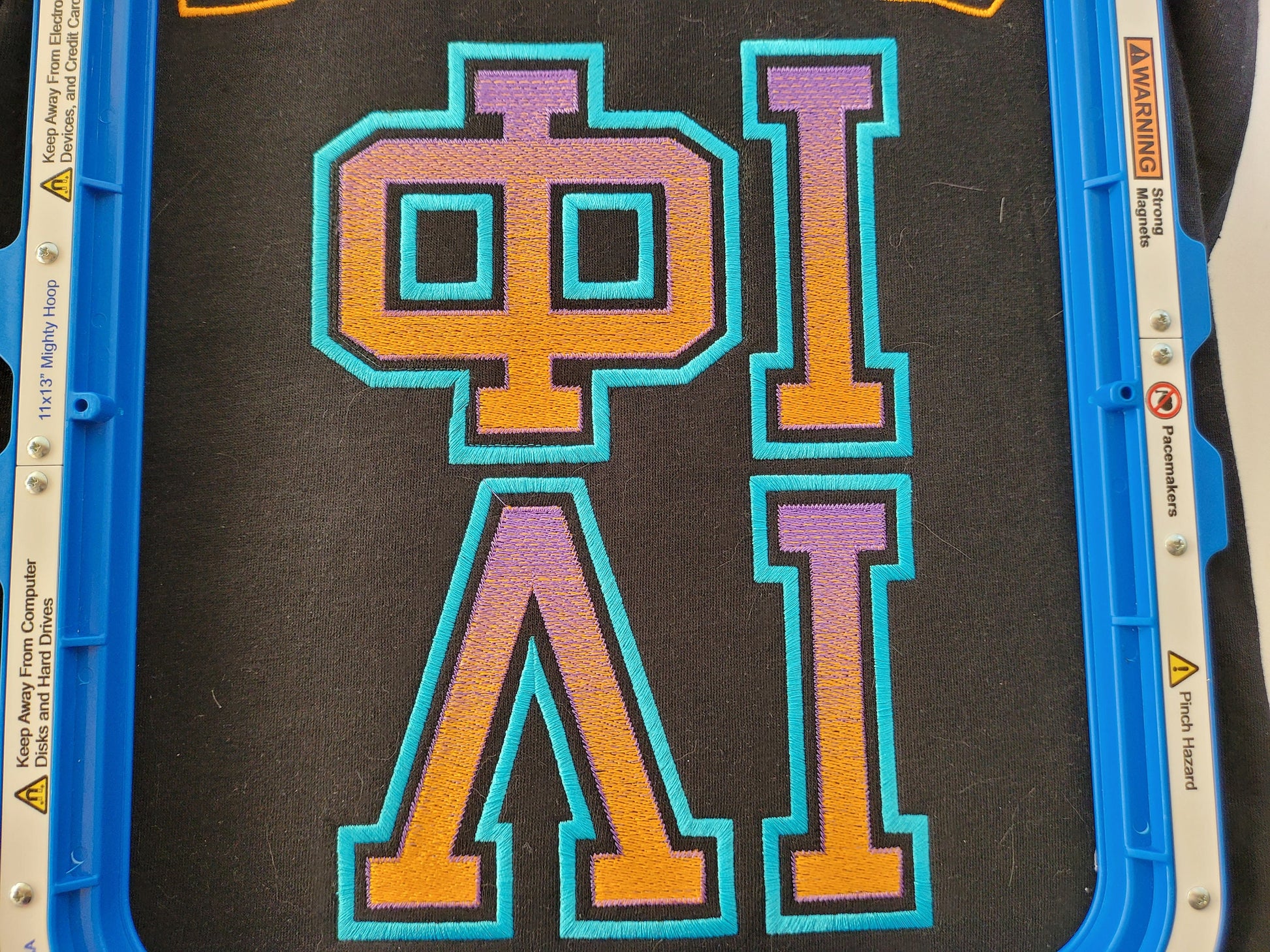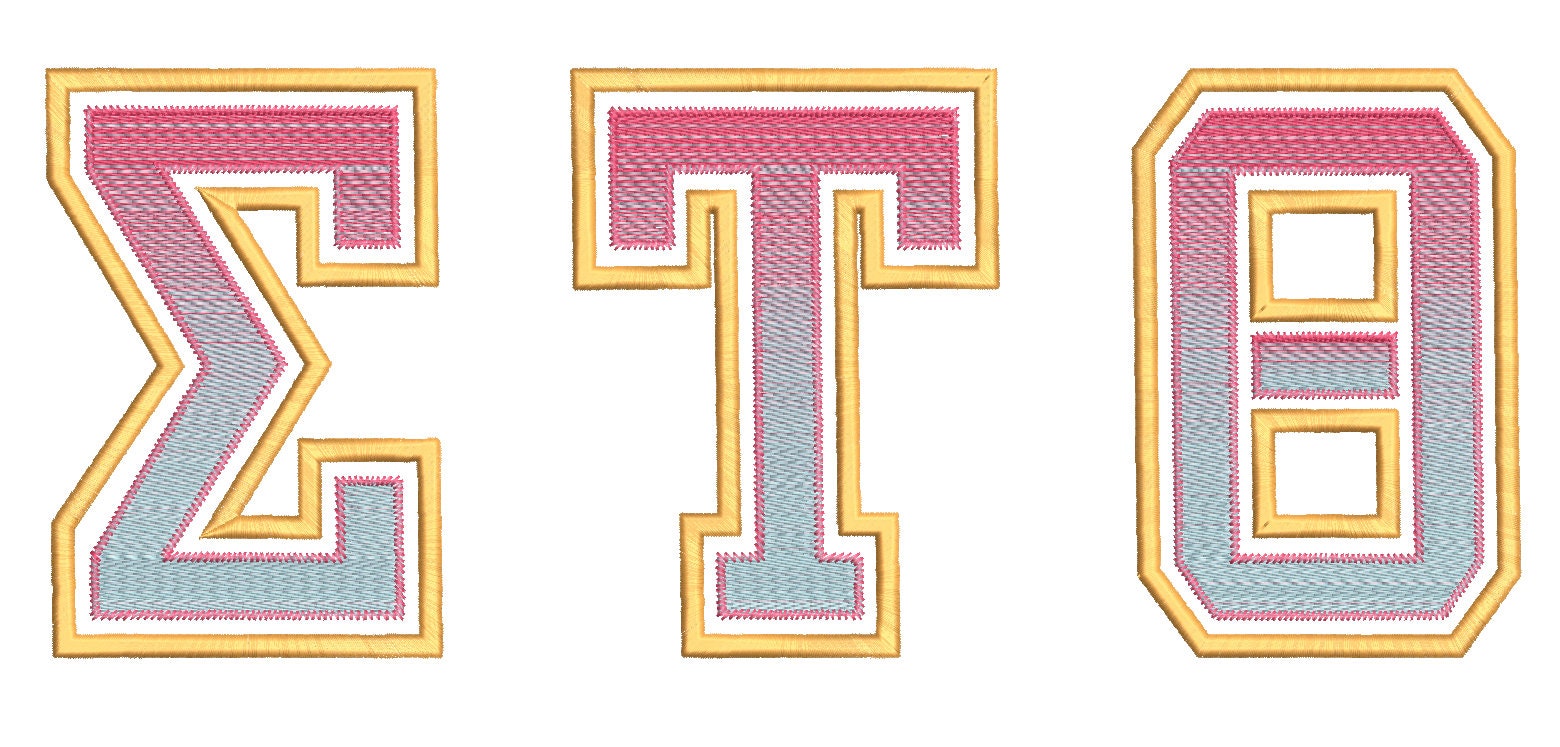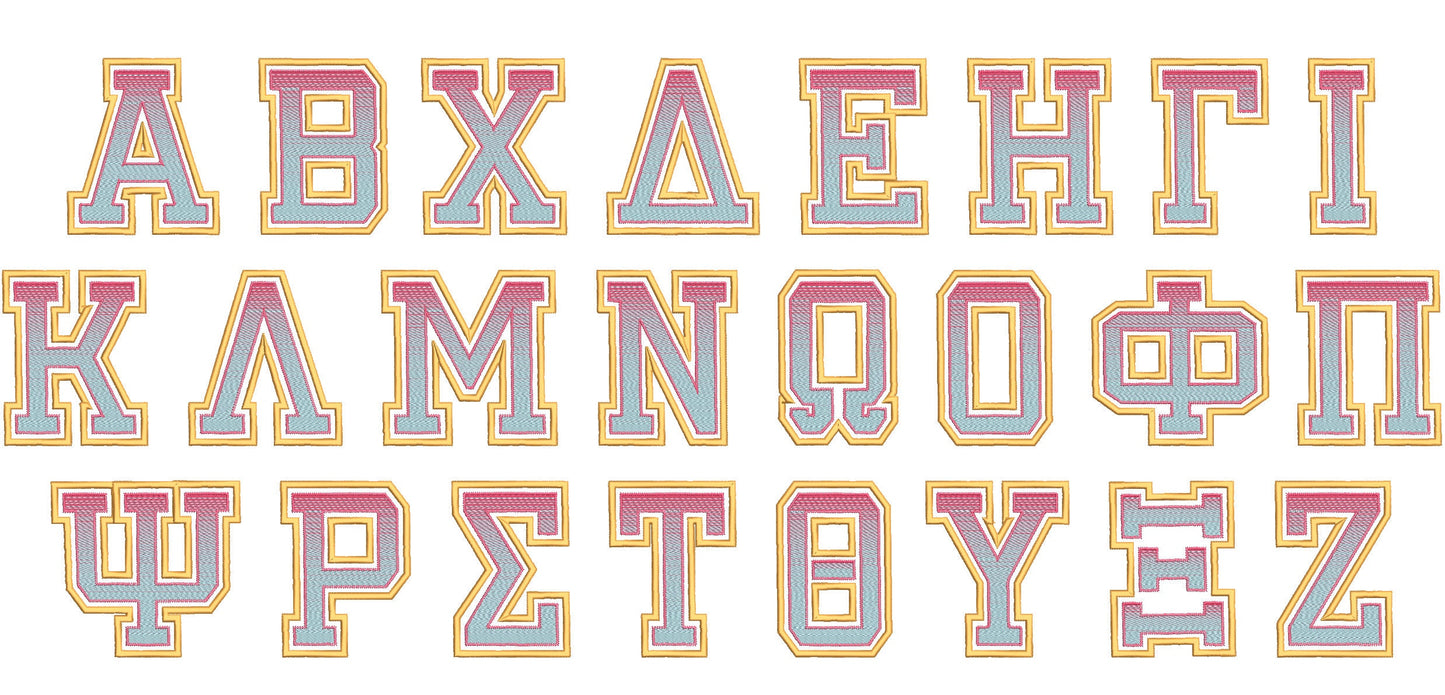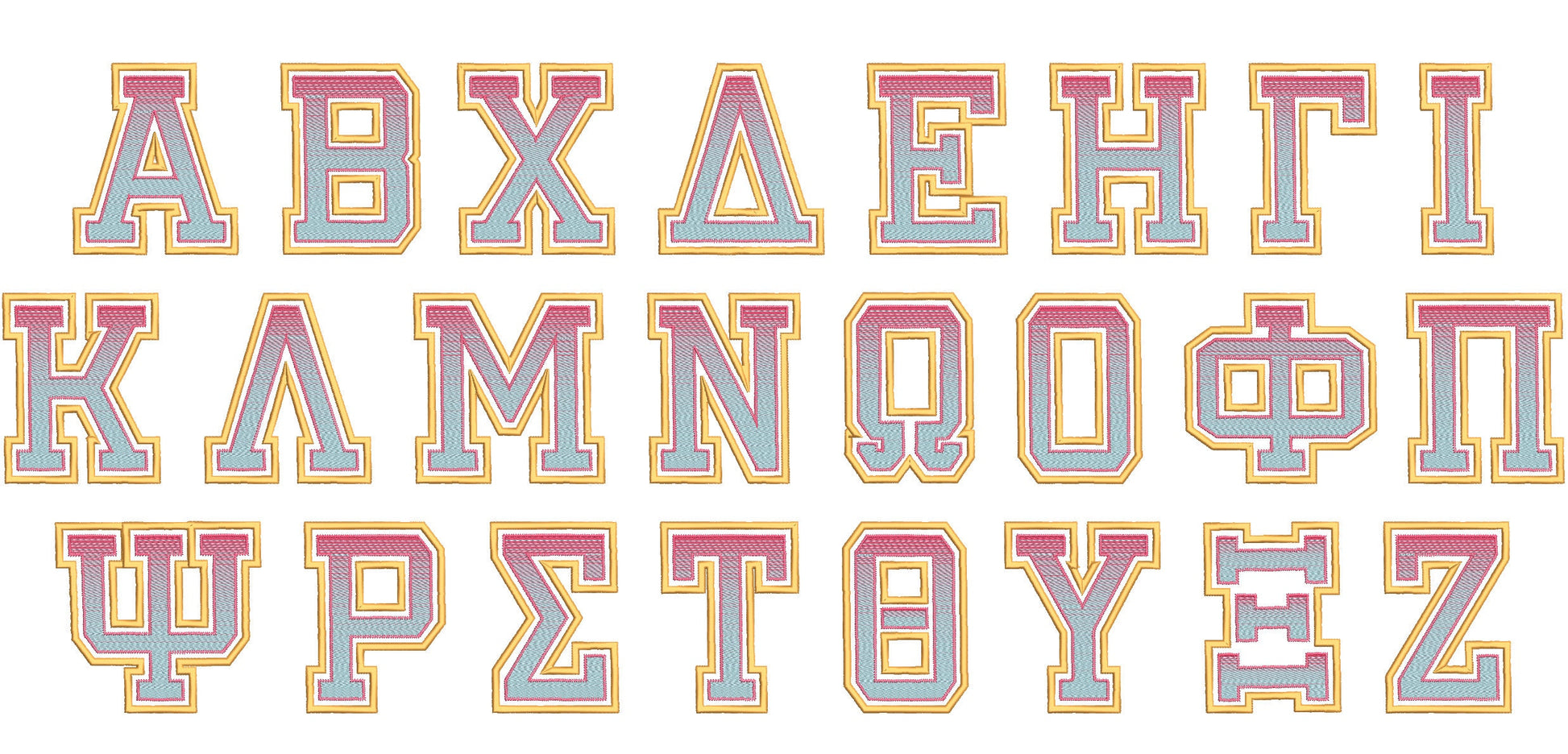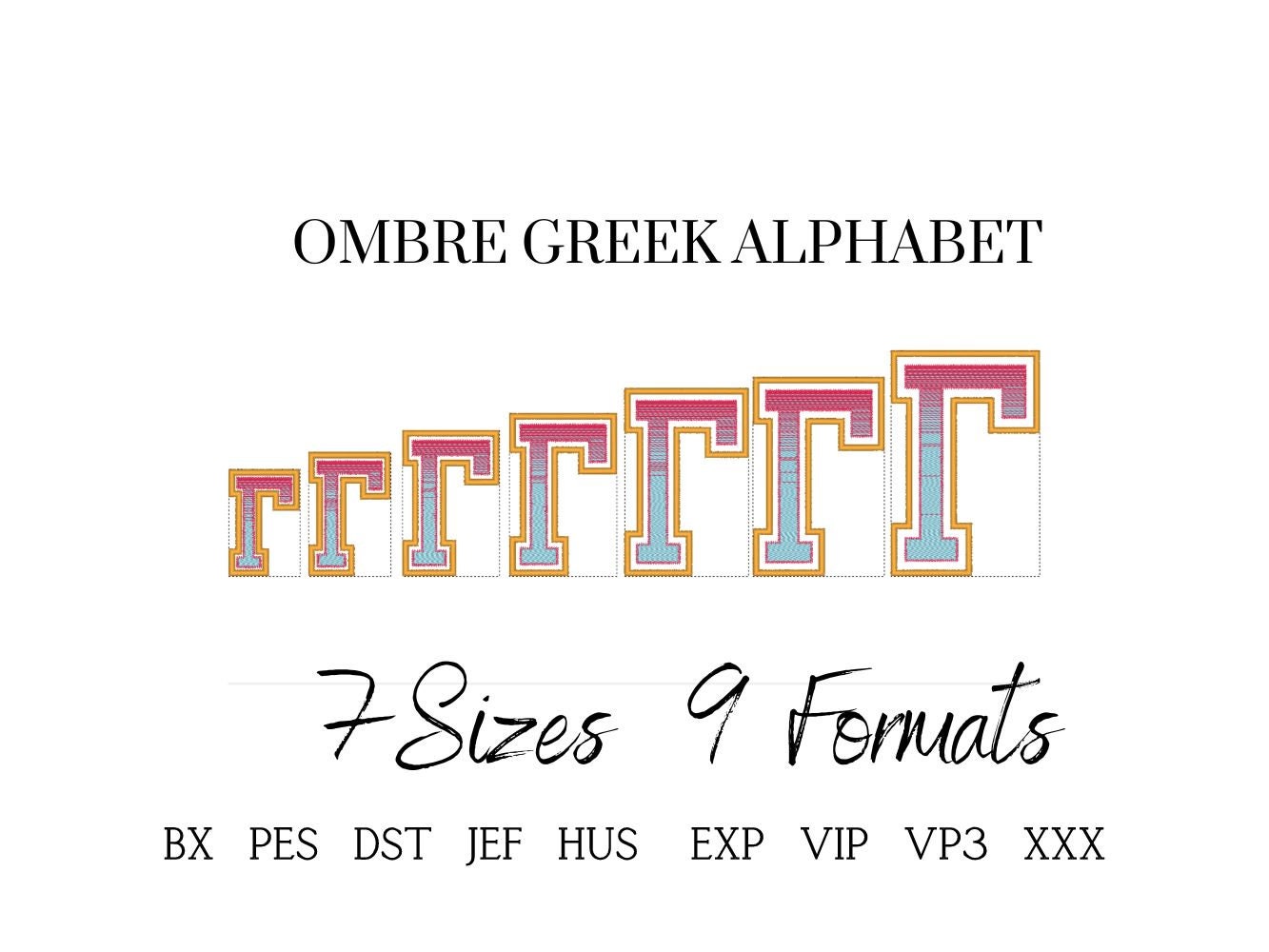
Or click to open the linkGreek letters in a varsity block style with an iridescent two-color effect, stitched as applique. Made for sorority and fraternity shirts, jackets and bags.
All 24 Greek letters plus numbers 0 to 9, in seven sizes: 3.5, 4, 4.5, 5, 5.5, 6 and 7 inches. Applique letters in two colors for an iridescent look.